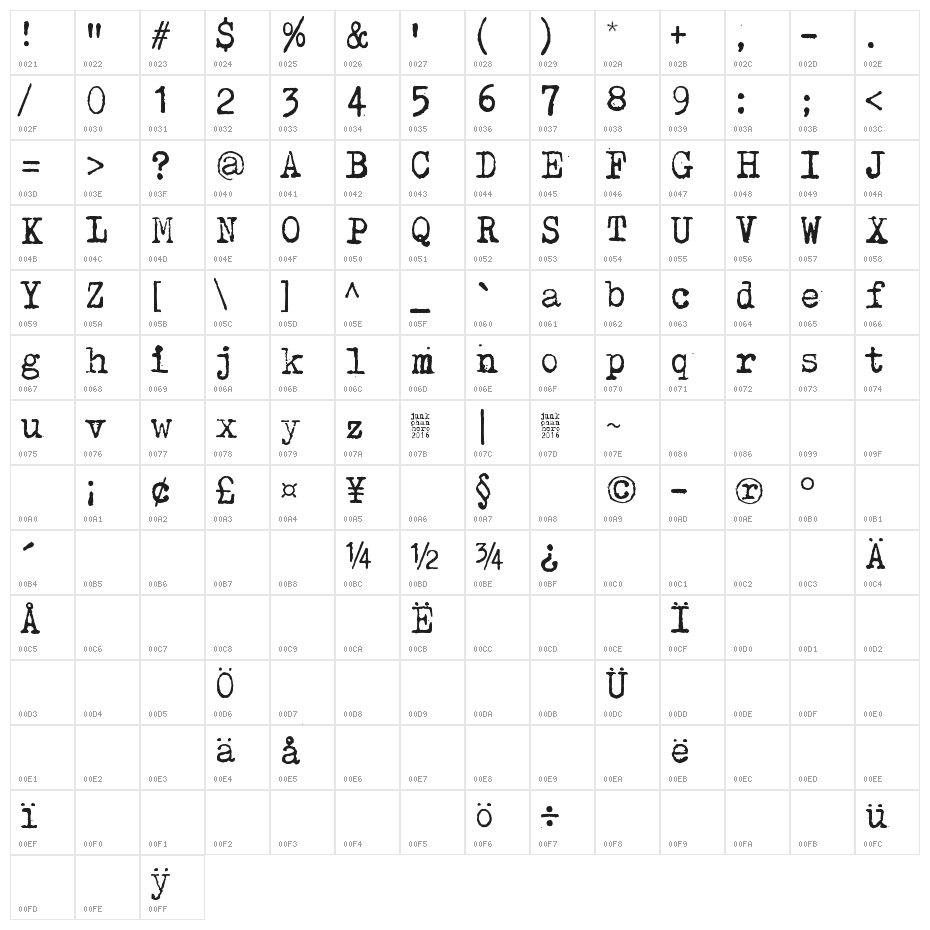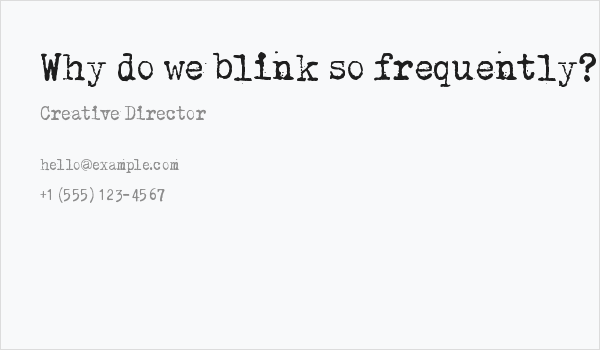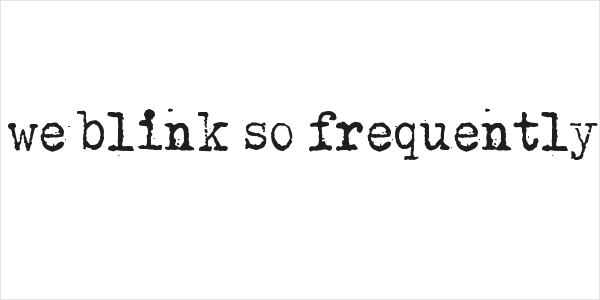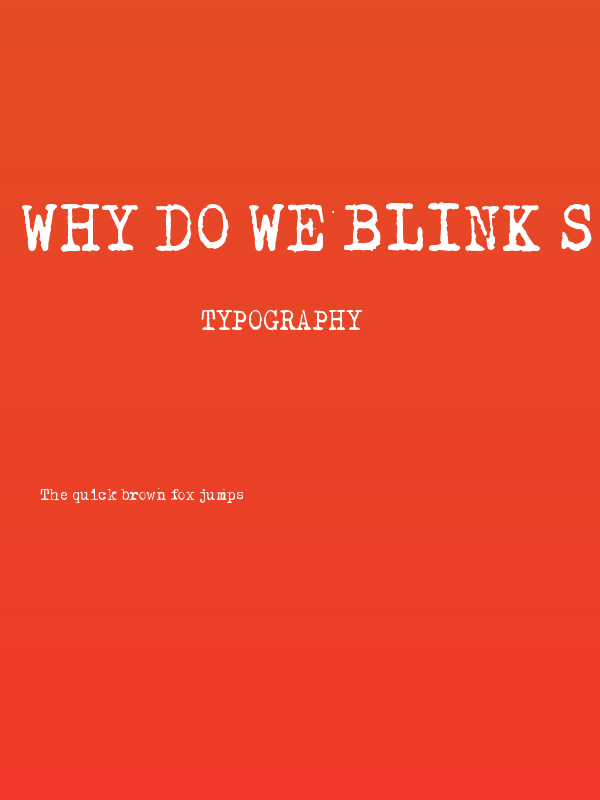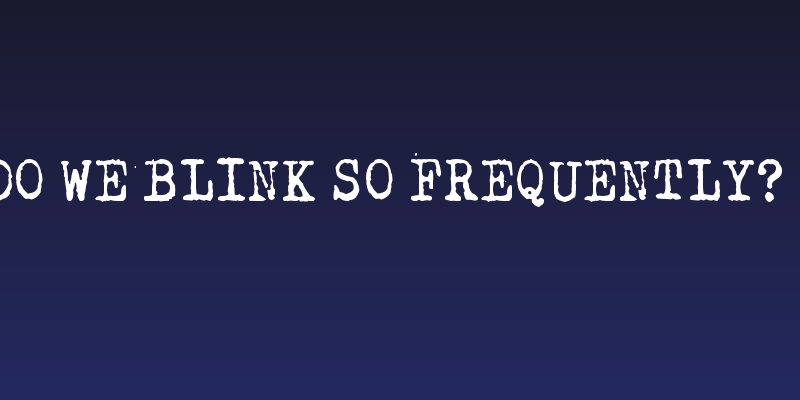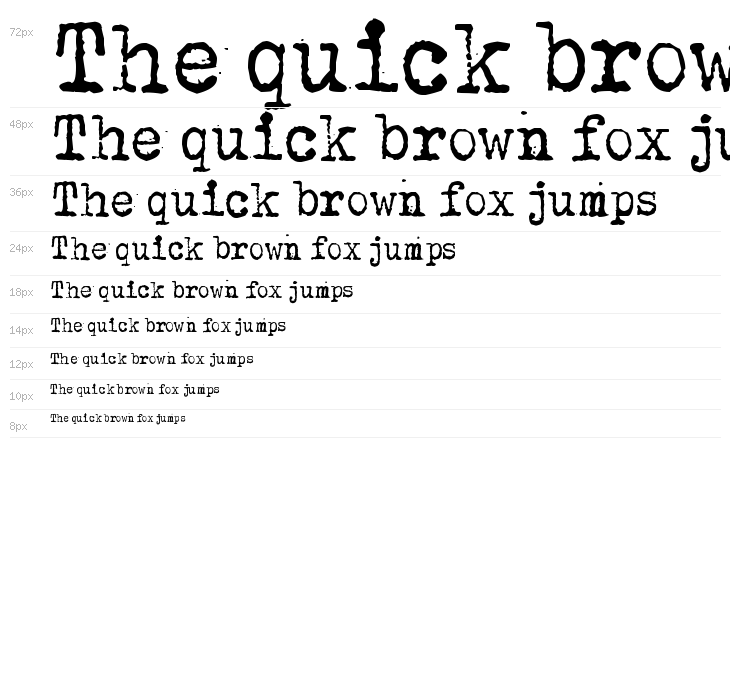
Why do we blink so frequently? Dark Font
Why do we blink so frequently? Dark Description
This font exhibits a rugged, distressed appearance reminiscent of vintage typewriter styles. Each character is uniquely textured, giving it a worn, ink-splotched look that adds a sense of authenticity and nostalgia. The uppercase and lowercase letters maintain a consistent style, with slightly irregular edges and varying stroke thicknesses that contribute to its handcrafted feel. The numerals and special characters follow suit, ensuring a cohesive visual identity across all glyphs. This font's distinctive style makes it ideal for projects that require a touch of retro charm or an artisanal aesthetic.
| Proposed Projects | Ideal for vintage-themed designs, posters, book covers, and branding that seeks a retro or handcrafted look. |